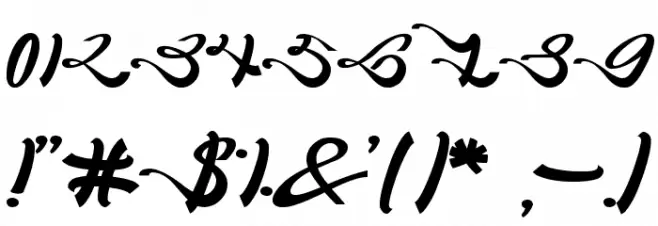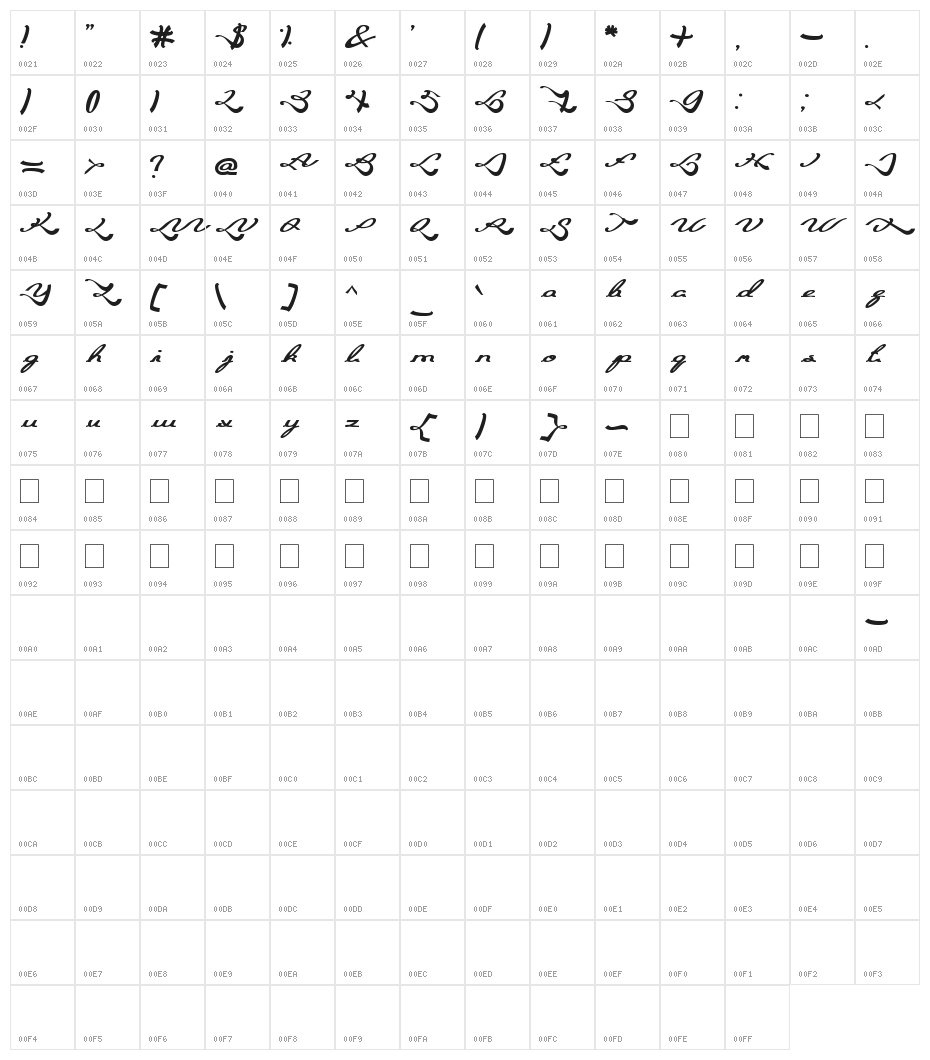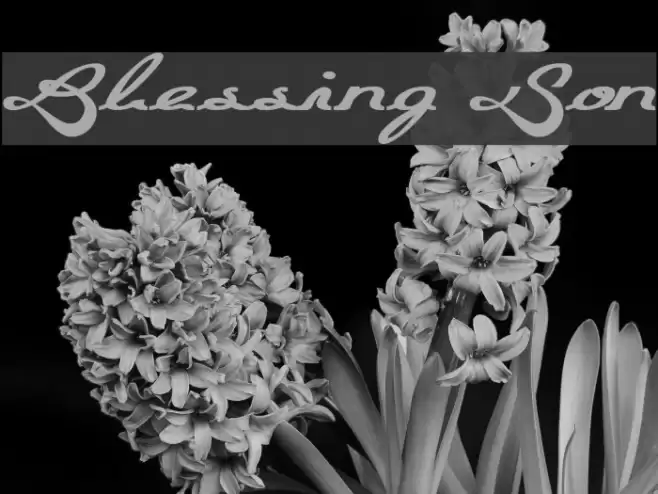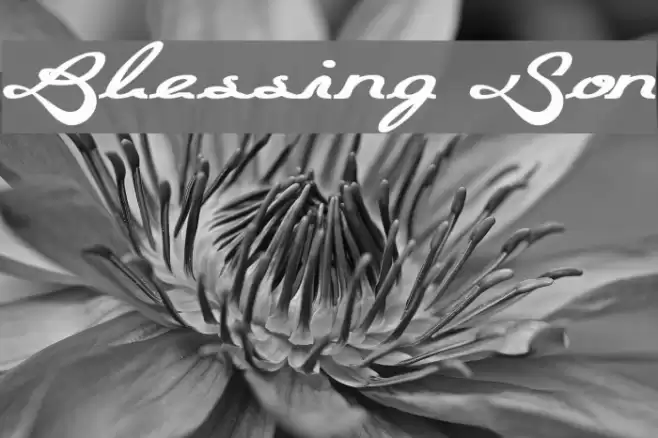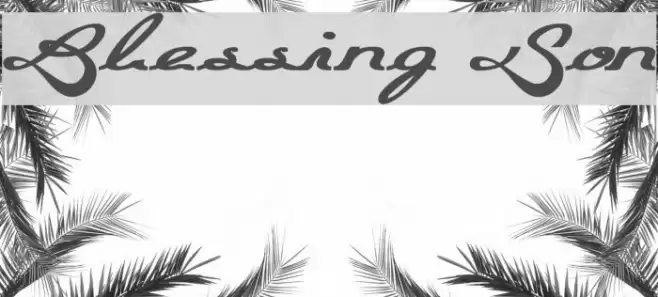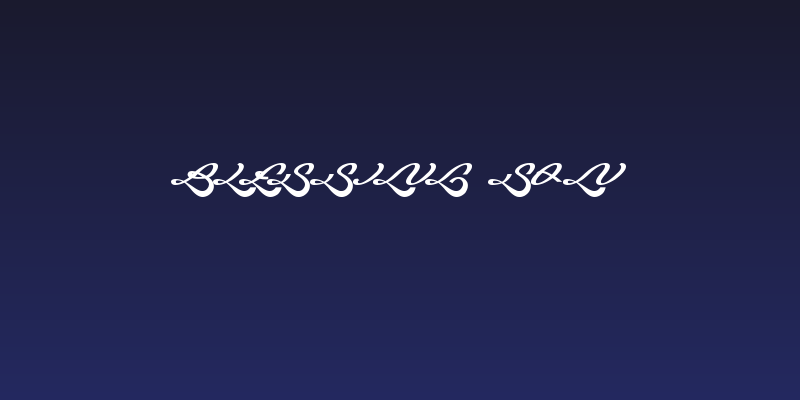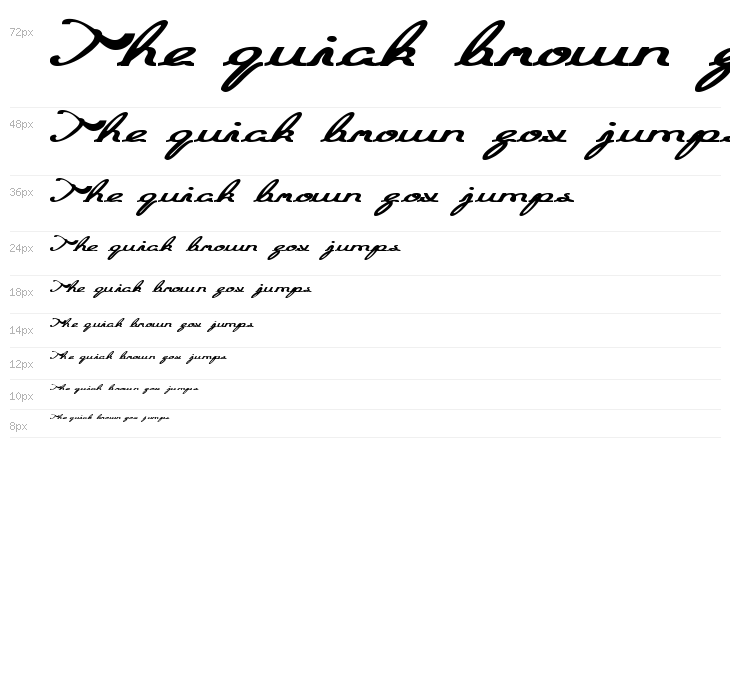
Blessing Son Font
Blessing Son Description
This font features an elegant and flowing script style, characterized by its cursive and interconnected letterforms. The strokes are smooth and rounded, giving it a graceful and sophisticated appearance. The uppercase letters are ornate, with elaborate loops and swirls, while the lowercase letters maintain a consistent flow, enhancing readability. The numerals and special characters are designed to match the overall aesthetic, with similar curves and embellishments. This font exudes a sense of elegance and charm, making it suitable for formal and decorative purposes.